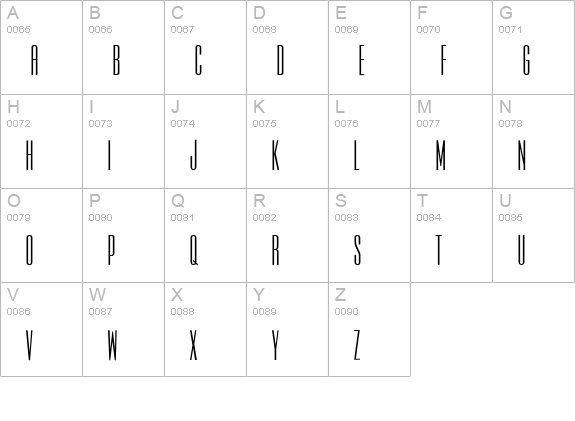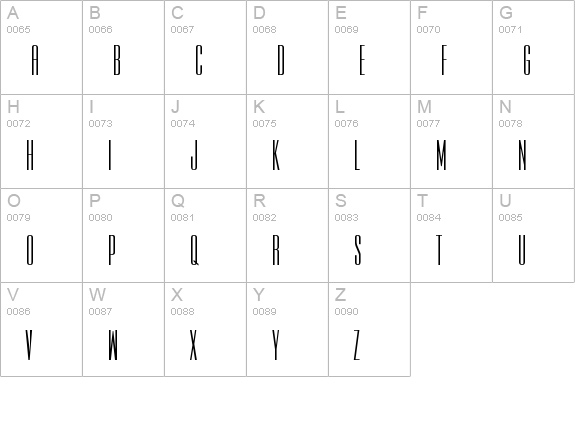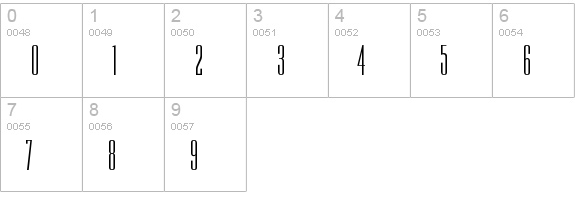
CgEmpire Font Details
CgEmpire font is a bold and stylish typeface that exudes elegance and sophistication. With its clean lines and modern design, this font is perfect for creating eye-catching headlines, logos, and branding materials. Its versatility makes it suitable for a wide range of projects, from fashion magazines to luxury branding. What sets CgEmpire font apart is that it is available for free download at FontsMarket.com. This means that you can easily access and use this stunning font in your designs without any cost. Whether you are a professional designer or a hobbyist looking to elevate your projects, CgEmpire font is a fantastic choice that will make your designs stand out. Download it today and add a touch of luxury to your creative work.